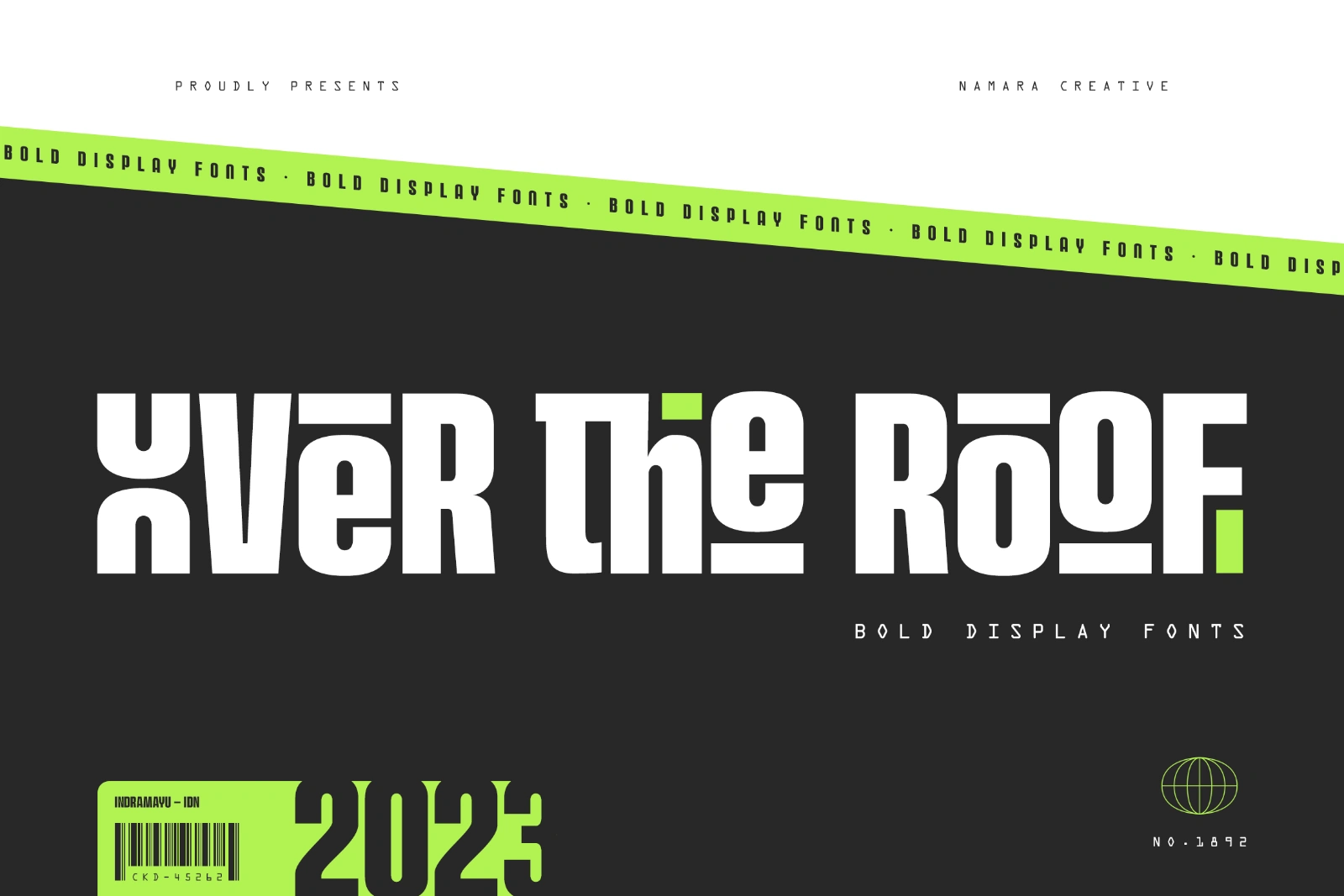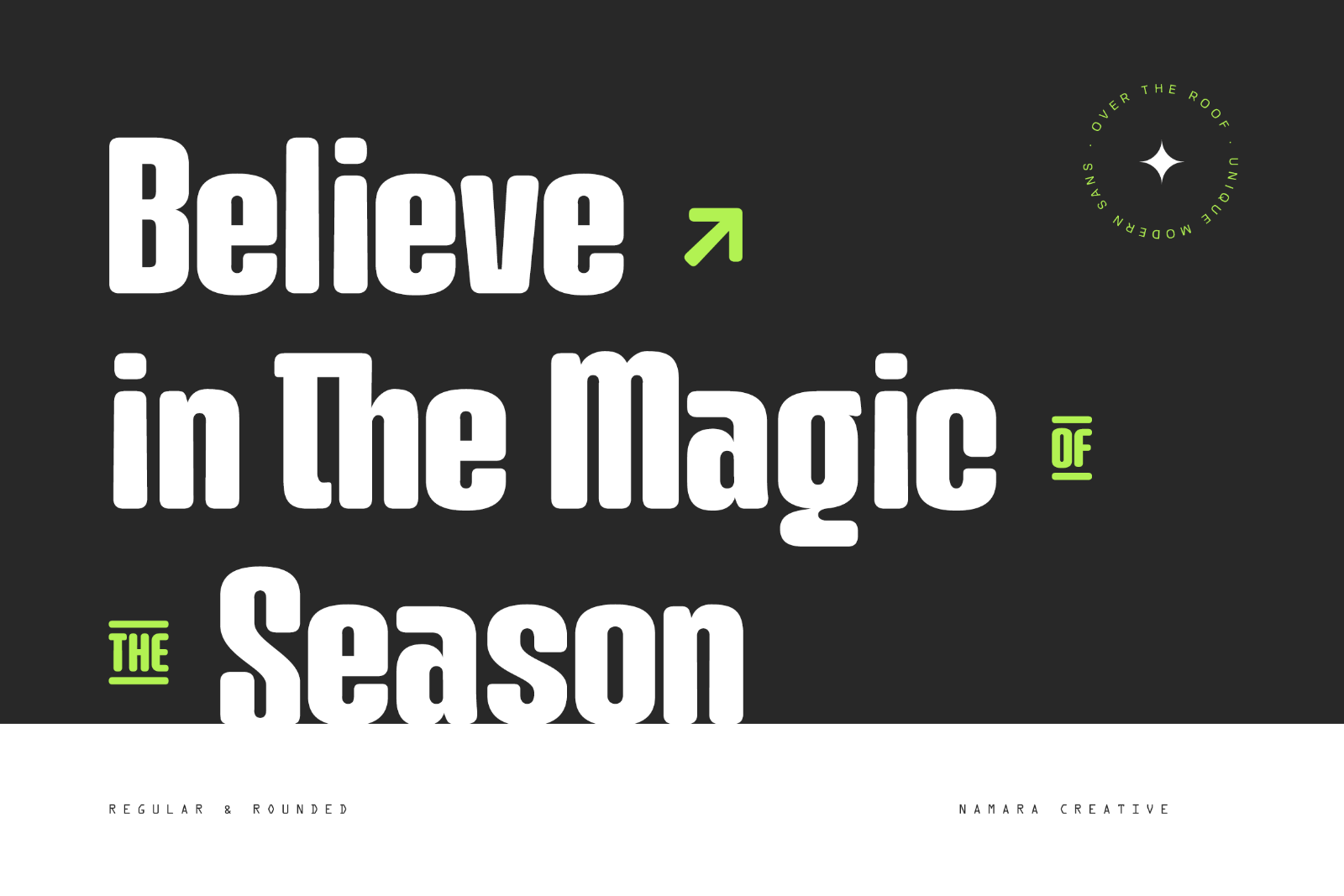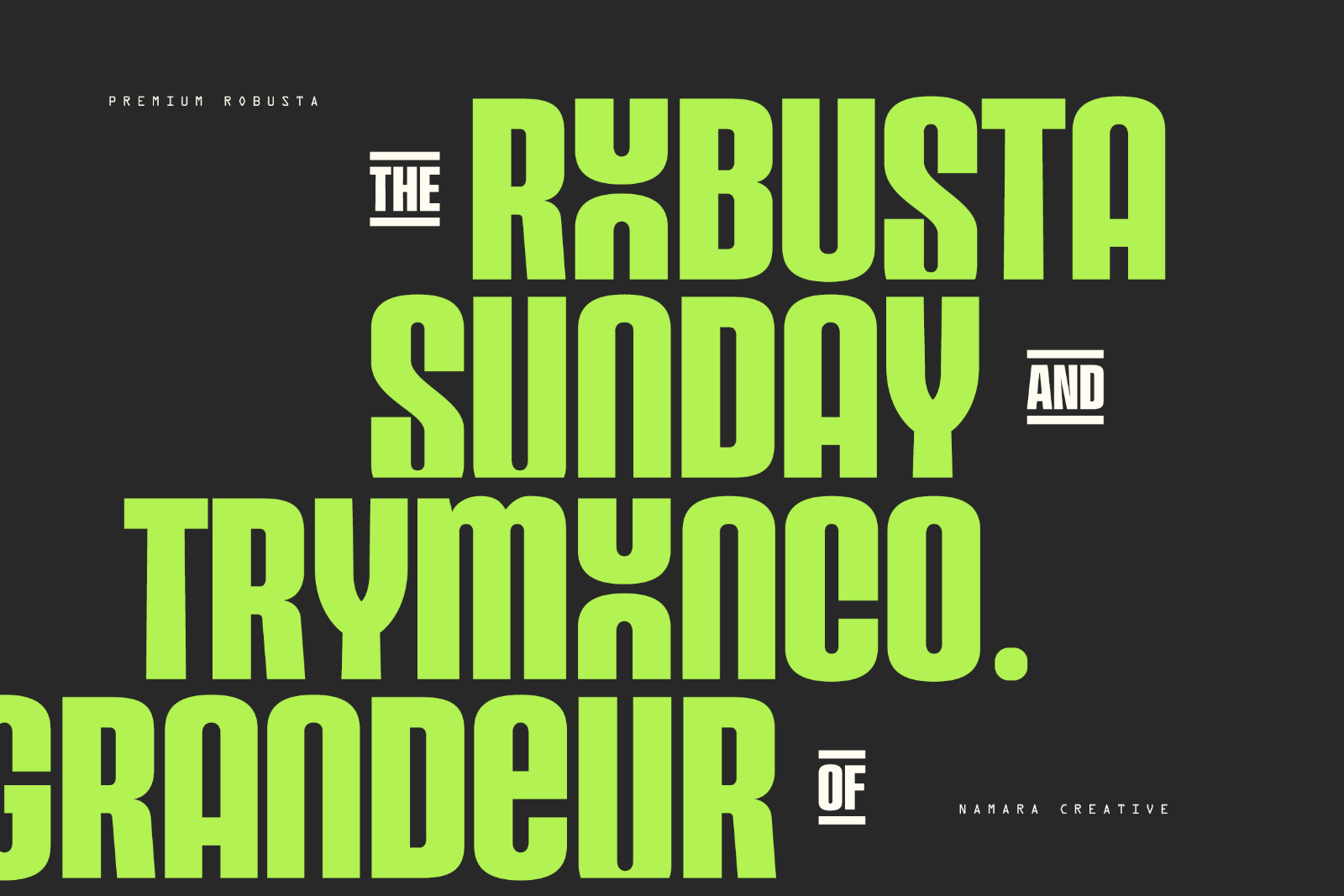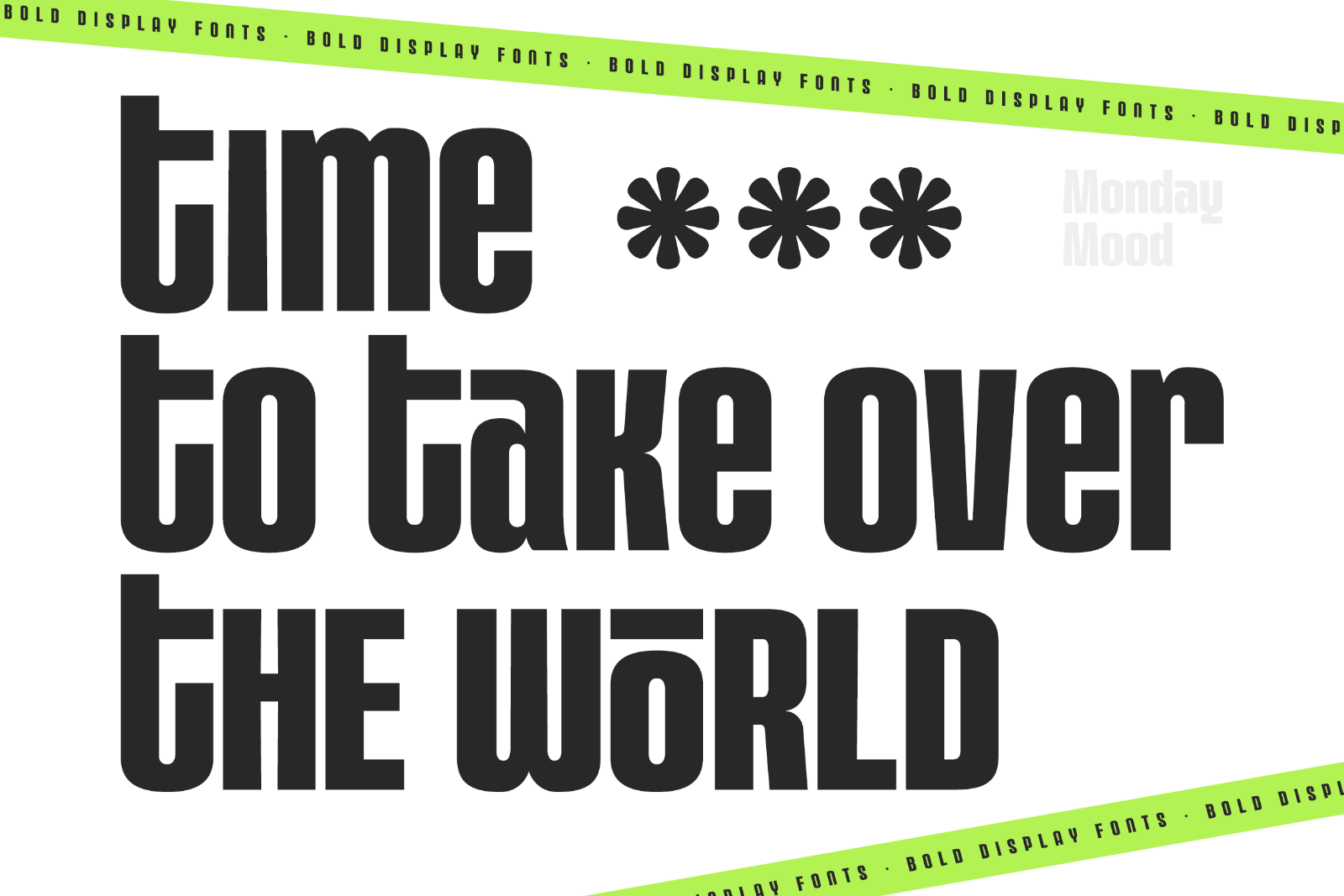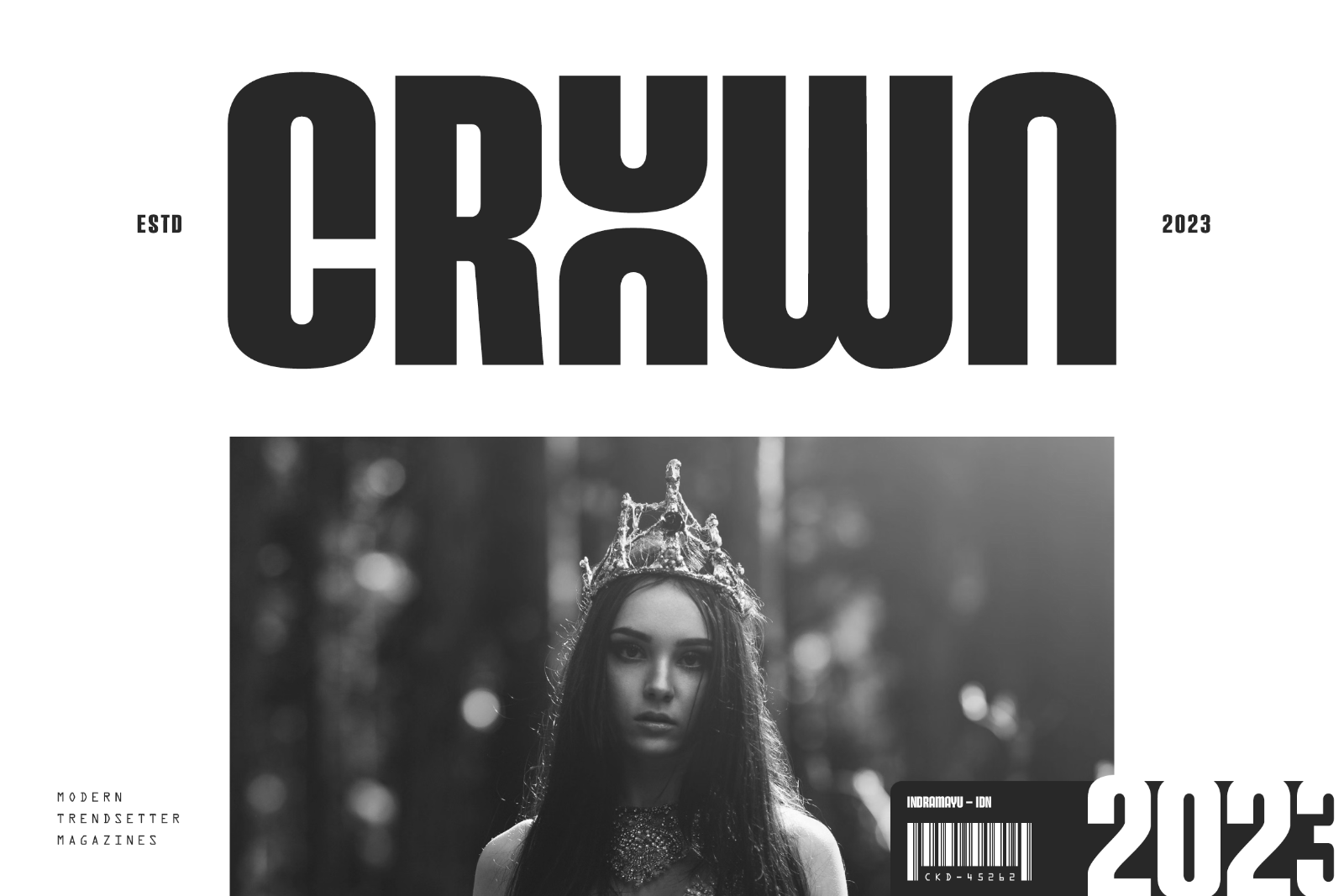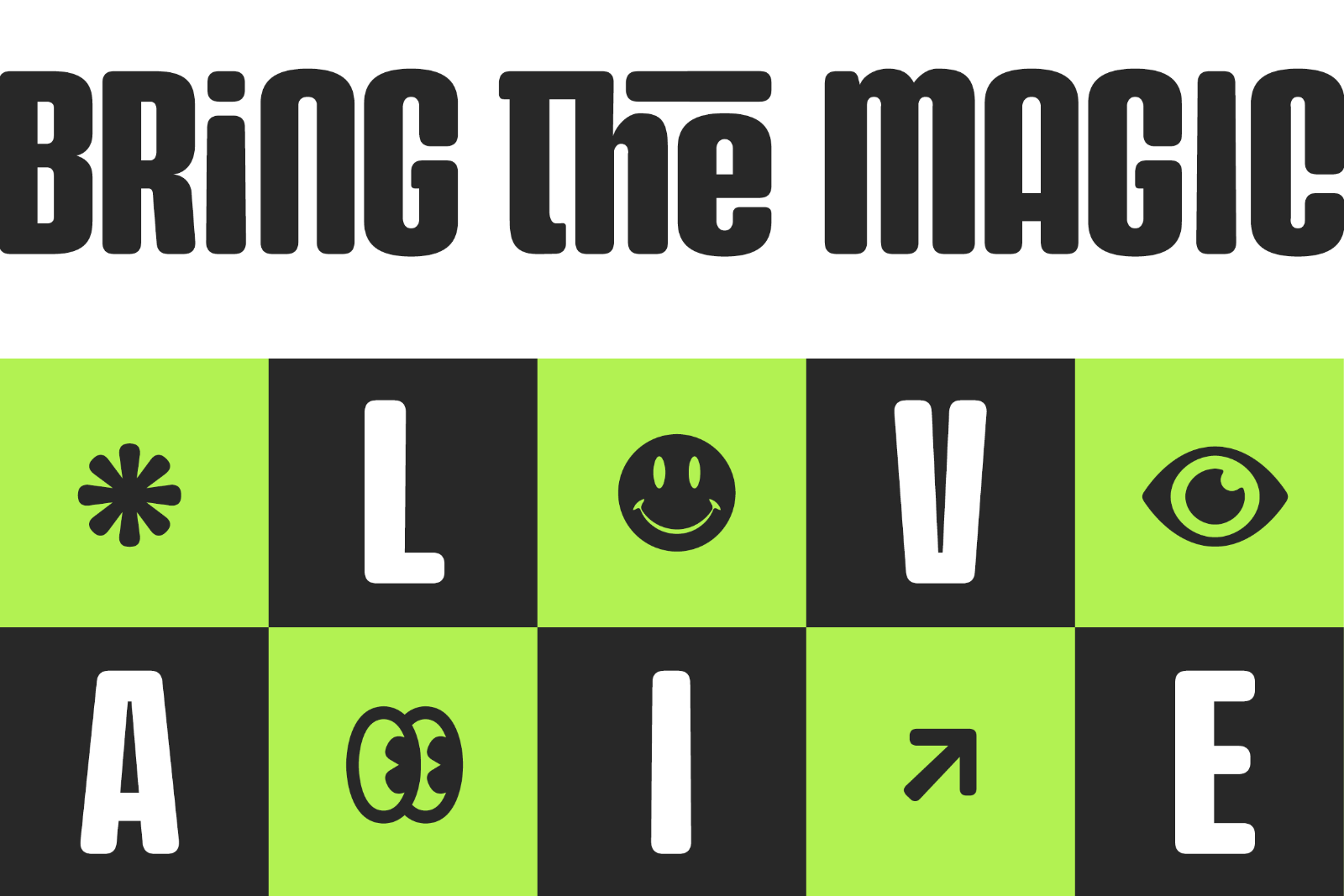
MarketplaceFontsOver the Roof - Modern Display Font
Bold contemporary sans serif display font designed to make a striking impacts. Its Clean lines and geometric forms create a sense of modernity and sophistication, making it perfect for headlines, posters, and branding.
This font stands out with its unique blend of modern aesthetics and functional design, making it an excellent choice for anyone looking to create memorable visual appearances.
• Unique & Retro Futuristic Theme Font